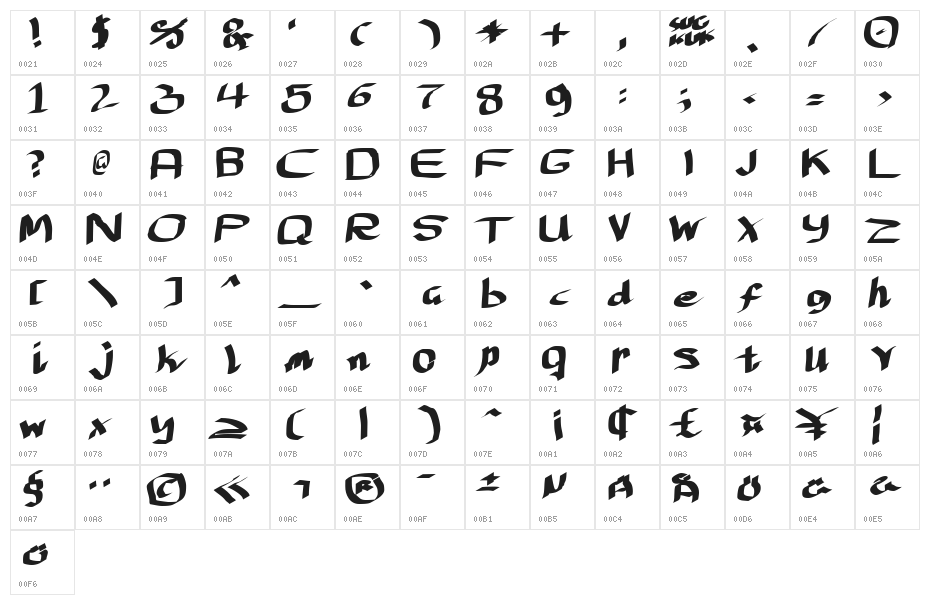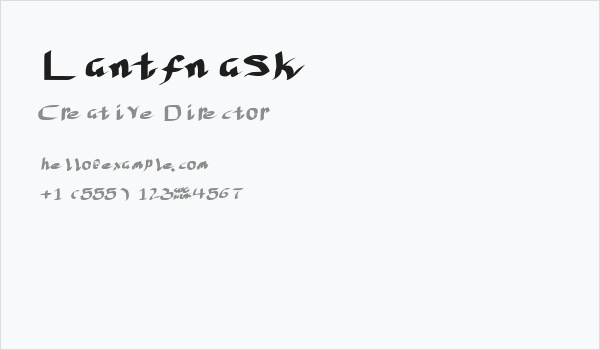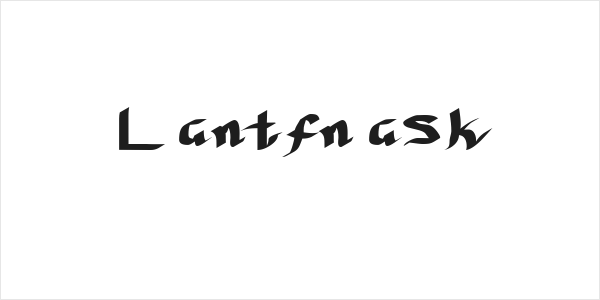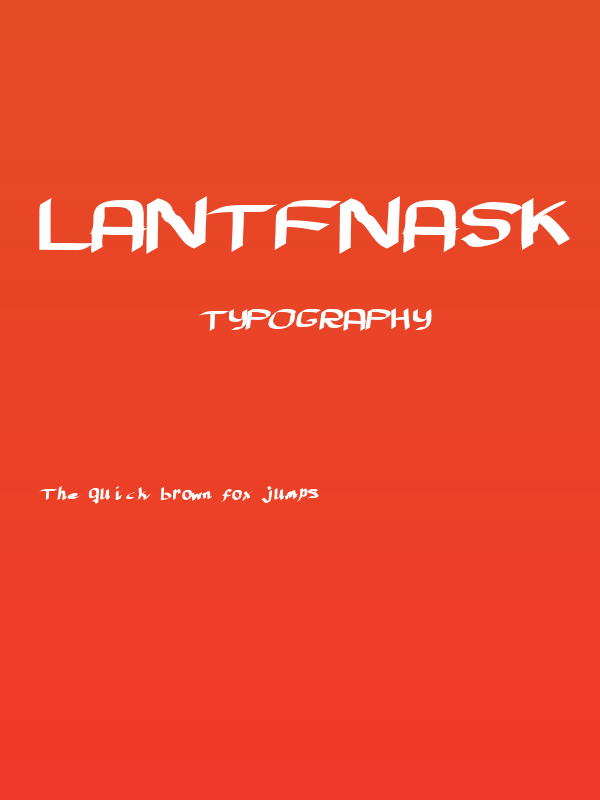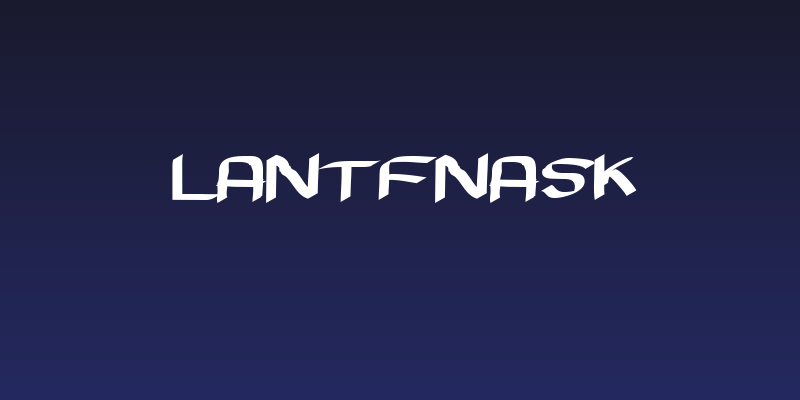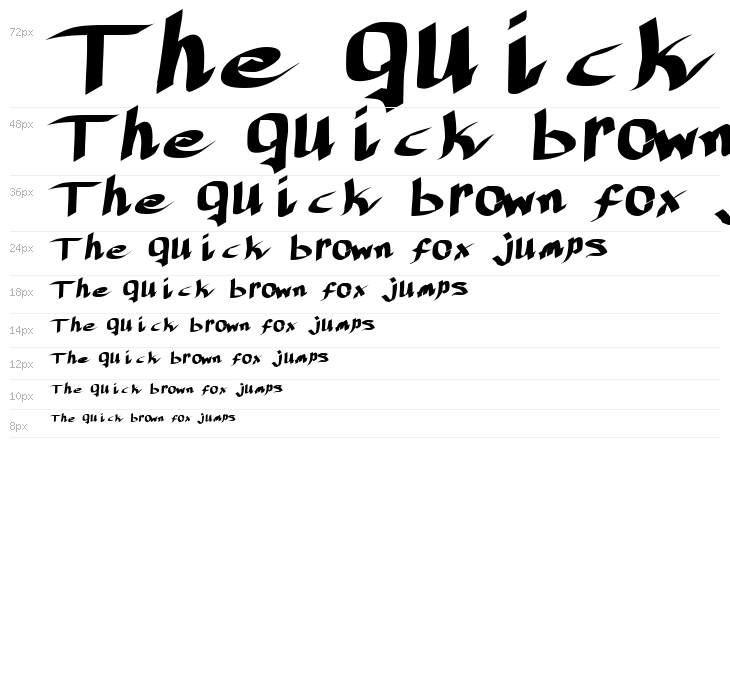
Lantfnask Font
Lantfnask Description
This font features a bold and dynamic style with sharp, angular edges and a strong presence. The uppercase letters are particularly striking, with a sense of movement and energy that suggests a modern, edgy aesthetic. The lowercase letters maintain this dynamic feel, with unique forms that add character and flair. The numerals are equally bold, ensuring they stand out in any design. Special characters are creatively designed, adding to the font's overall impact. This font is ideal for projects that require a strong visual statement.
| Proposed Projects | Ideal for branding, posters, album covers, and any project needing a strong visual impact. |